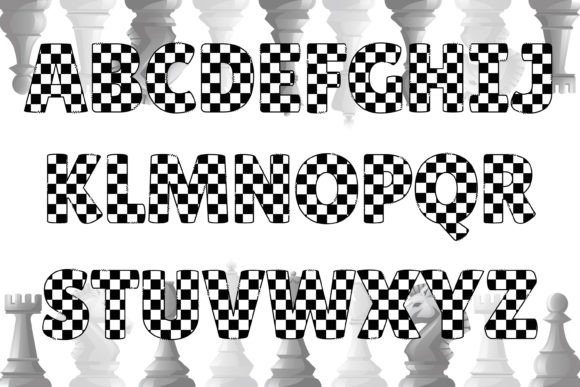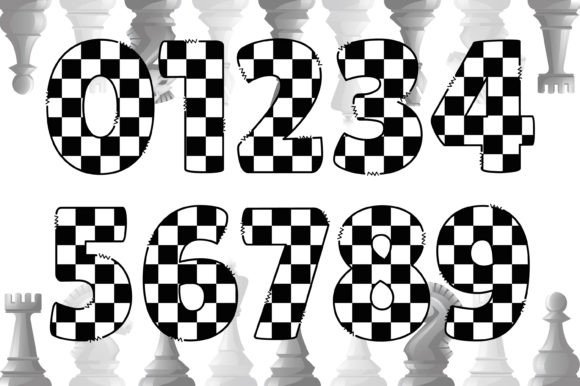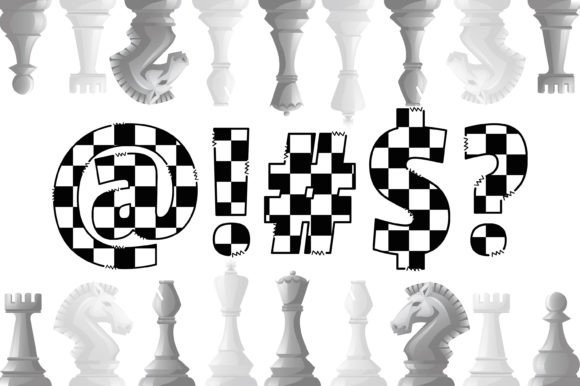
Designing a Playful Touch
Remember the thrill of discovering a new font that perfectly captures the essence of your creative project? For many designers, it’s that ‘aha’ moment that sets their imagination ablaze. Whether you’re crafting a whimsical children’s book or an eye-catching poster, the right font can elevate your design and leave a lasting impression on your audience.
One such font that has captured the hearts of designers is the Checkerboard Font. This charming font is designed to add a playful and artistic touch to any design, making it perfect for projects that require a sense of fun and creativity. By incorporating the Checkerboard Font into your design, you can create an engaging and immersive experience for your viewers.
Checkerboard Font Key Features
- Unique Characteristic: Checkerboard Font is a novelty font that displays a checkerboard pattern in place of letters and numbers, making it ideal for decorative and creative purposes.
- Font Family: Checkerboard Font is a single-family font with a wide range of characters, including uppercase and lowercase letters, numbers, and punctuation marks.
Designer Review: Checkerboard Font
Checkerboard Font is a visually striking choice for designers looking to add some edginess to their projects. ✨ The bold, grid-like pattern creates a sense of dynamism and energy, making it perfect for modern and futuristic designs.
Here are some of the strengths of the Checkerboard Font:
- ✨ Highly recognizable: The checkerboard pattern is instantly recognizable, making it a great choice for branding and logo design.
- ✨ Versatile: Checkerboard Font works well for a variety of design styles, from minimalist to avant-garde.
- ✨ Easy to use: The font is easy to read and understand, even at small sizes.
- ⚠️ Limited legibility: In certain situations, the checkerboard pattern can make the text difficult to read, especially for those with visual impairments.
- ⚠️ Overuse: The font can become overwhelming if used too extensively, so be sure to balance it with other design elements.
Overall, I think Checkerboard Font is a great addition to any designer’s toolkit. While it has some limitations, its unique look and feel make it a valuable asset for modern designs. With careful use and consideration, Checkerboard Font can add a touch of sophistication and style to any project.
Tips for Getting the Most Out of Checkerboard Font
Use the Checkerboard Font to add a unique and playful touch to your designs.
Pair it with bold colors and simple graphics to create a striking visual effect.
Use it to highlight important information or to add a sense of fun to your content.
The Checkerboard Font is perfect for:
Children’s educational materials
Party invitations and decorations
Playful marketing campaigns
Alternatives to Checkerboard Font
1. Braille Font
The Braille Font is a typographic font that mimics the raised dots of Braille, creating a textured, grid-like effect. It is best used for creating visually striking headings or titles where a bold, tactile feel is desired.
Compared to Checkerboard Font, Braille Font has a more intricate and organic texture, making it suitable for designers who want to add a unique touch to their designs. However, it may not be as versatile as Checkerboard Font due to its more complex design.
2. Houndstooth Font
The Houndstooth Font features a broken-checkered pattern, similar to a houndstooth coat, creating a classic and sophisticated look. It is ideal for use in fashion, luxury, or vintage-themed designs where a subtle, textured effect is desired.